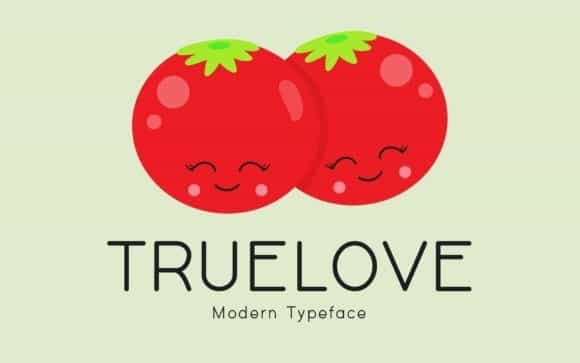
Truelove is a romantic, nevertheless basic typeface. Truelove is a font that is perfectly fit for stationery, logos, t-shirt design, paper design, print design-designs on the web header of a website photo frame flyer music cover poster image slider and many other such things.